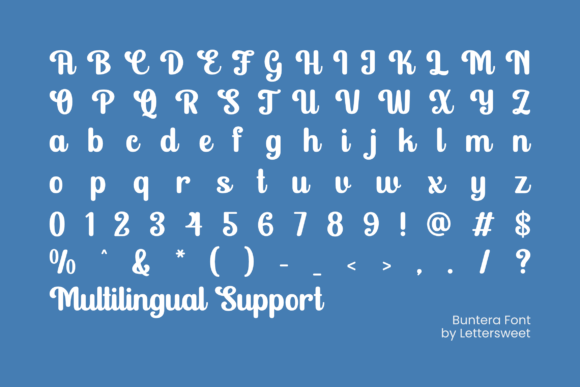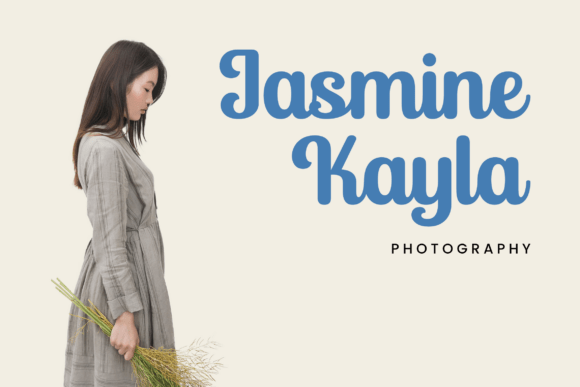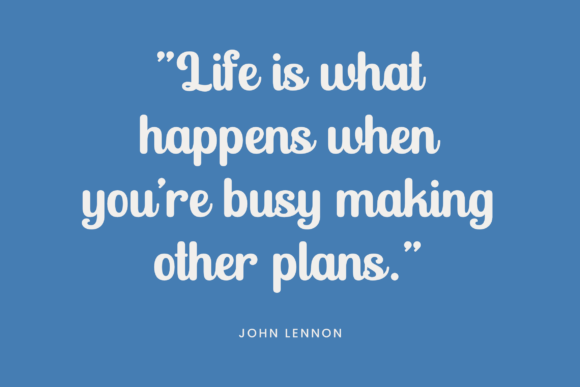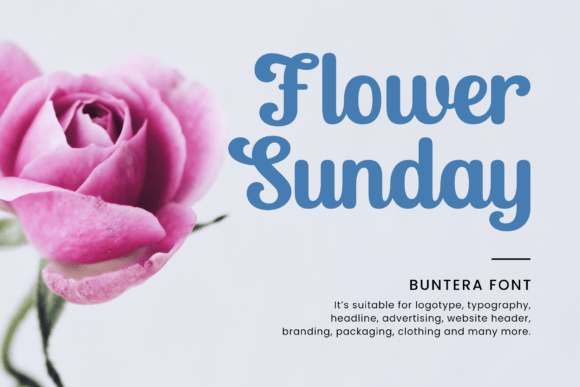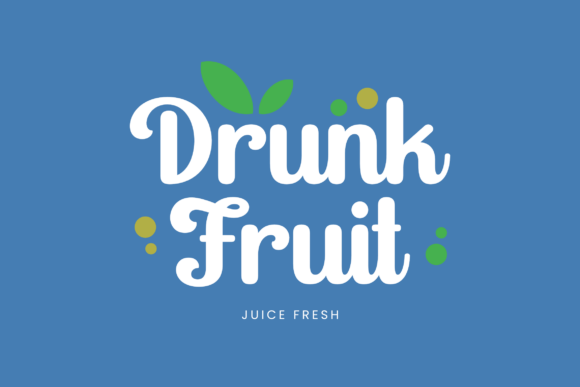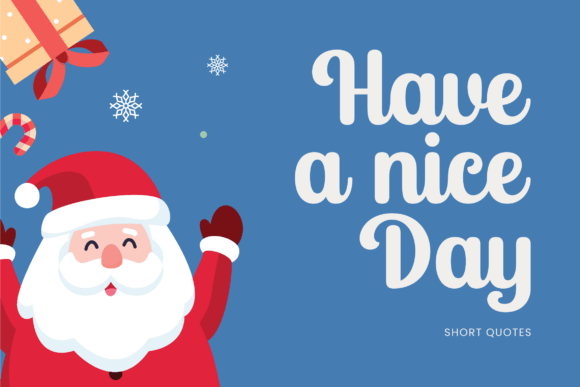
Buntera Font: The Friendly and Modern Script Display Font
In the world of typography, fonts play a crucial role in conveying the tone and personality of a brand. For designers and crafters, finding the perfect font that combines style, readability, and versatility can be a daunting task. However, if you’re looking for a font that embodies friendliness, fun, and modernity, look no further than Buntera Font.
What is Buntera Font?
Buntera is a script display font that boasts smooth, rounded curves and soft terminals, giving it a unique and approachable feel. This font is designed to deliver a friendly, fun, and modern look that’s perfect for a wide range of applications. Whether you’re a designer, crafter, or entrepreneur, Buntera Font is an excellent choice for adding a personal touch to your projects.
Key Features of Buntera Font
So, what makes Buntera Font stand out from the rest? Here are some of its key features:
- Smooth, rounded curves: Buntera’s curves are carefully crafted to create a soft, inviting look that’s easy on the eyes.
- Soft terminals: The font’s terminals are designed to be gentle and rounded, adding to its friendly and approachable feel.
- Neat monoline strokes: Despite its script nature, Buntera’s strokes are neat and monoline, making it readable even at small sizes.
- Modern look: Buntera’s unique blend of curves and strokes gives it a distinctly modern feel that’s perfect for brands looking to stand out.
Use Cases for Buntera Font
Buntera Font is incredibly versatile, making it suitable for a wide range of applications. Here are some ideas to get you started:
- Logos: Buntera’s unique blend of friendliness and modernity makes it an excellent choice for logos that need to stand out.
- Packaging: Whether you’re designing labels for products or packaging for gifts, Buntera Font is a great choice.
- Poster titles: Add a touch of personality to your poster titles with Buntera’s smooth, rounded curves.
- Product labels: Buntera Font is perfect for product labels that need to be both eye-catching and readable.
- Bakery/café brands: Buntera’s friendly and approachable feel makes it an excellent choice for bakery and café brands.
- Invitations: Whether you’re designing wedding invitations or party invites, Buntera Font is a great choice.
- Skincare boxes: Buntera’s modern look and feel make it perfect for skincare brands looking to create a luxurious and high-end feel.
- Instagram/TikTok content: Add a touch of personality to your social media content with Buntera Font.
Why Choose Buntera Font?
So, why should you choose Buntera Font for your next project? Here are just a few reasons:
- Unique and distinctive: Buntera Font is unlike any other font out there, making it perfect for brands looking to stand out.
- Readability: Despite its script nature, Buntera Font is highly readable, even at small sizes.
- Versatility: Buntera Font is suitable for a wide range of applications, from logos to social media content.
- Friendliness: Buntera’s smooth, rounded curves and soft terminals give it a friendly and approachable feel that’s hard to find in other fonts.
| Font Name | Buntera Font |
| Author | Lettersweet |
In conclusion, Buntera Font is an excellent choice for designers and crafters looking for a friendly, fun, and modern script display font. With its smooth, rounded curves, soft terminals, and neat monoline strokes, Buntera Font is perfect for a wide range of applications. Whether you’re designing logos, packaging, or social media content, Buntera Font is sure to add a touch of personality and style to your projects.